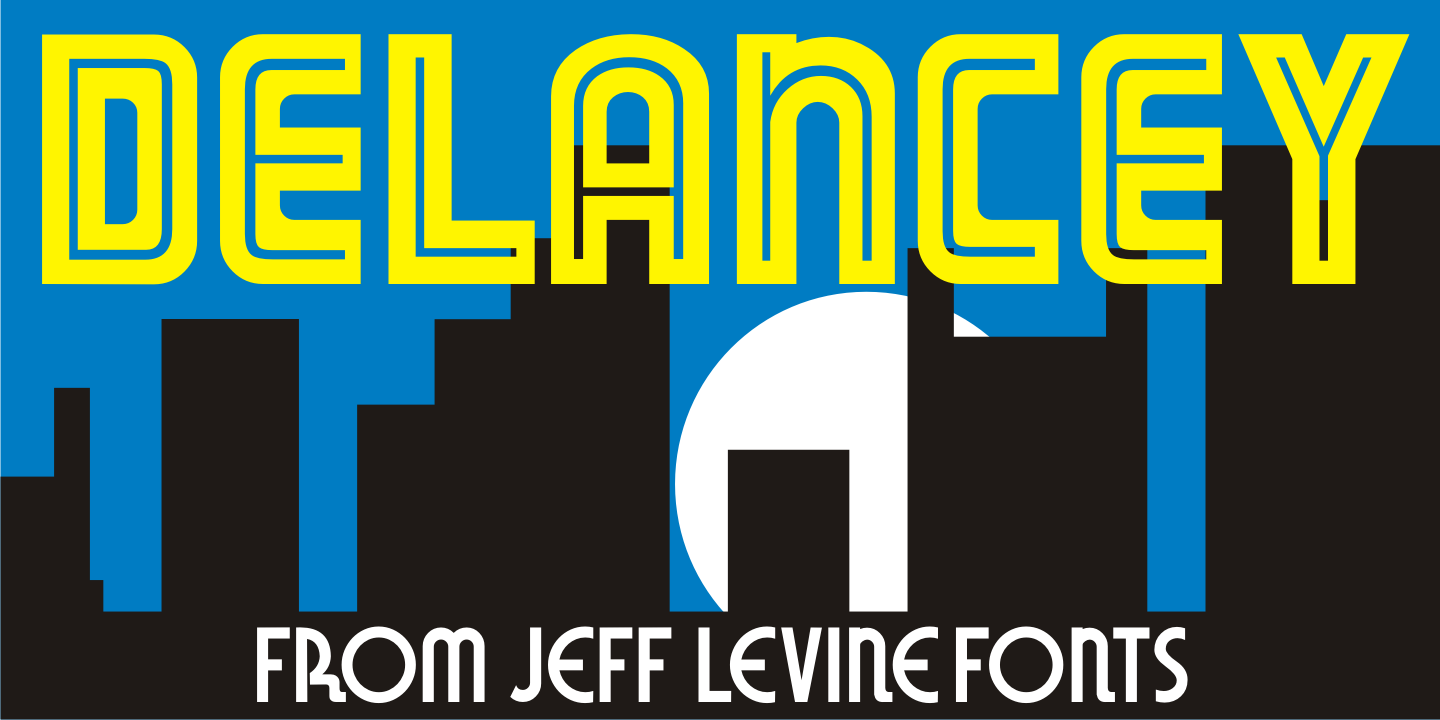
Discover the Delancey JNL Font Free Download, a captivating Art Deco-inspired typeface designed by Jeff Levine and published by Jeff Levine Fonts. This font is available for free download for testing purposes, but you must purchase it for commercial use. Its inline lettering, drawn from vintage sheet music, delivers a sophisticated, retro aesthetic perfect for standout designs.
The Delancey JNL Font is ideal for posters, logos, vintage branding, magazine headlines, and event invitations, where its elegant, geometric style adds a touch of 1920s glamour. Its clean lines ensure readability and impact in both digital and print formats.
What makes the Delancey JNL Font Free Download exciting is its timeless Art Deco charm, blending vintage sophistication with modern versatility. The inline design creates a striking visual effect, making it perfect for projects that demand elegance and nostalgia.
The Delancey JNL Font family includes a single style, focusing on its signature inline, sans-serif Art Deco look. Related fonts like Wonderful JNL and Art Topic JNL offer similar Art Deco vibes for additional creative options.